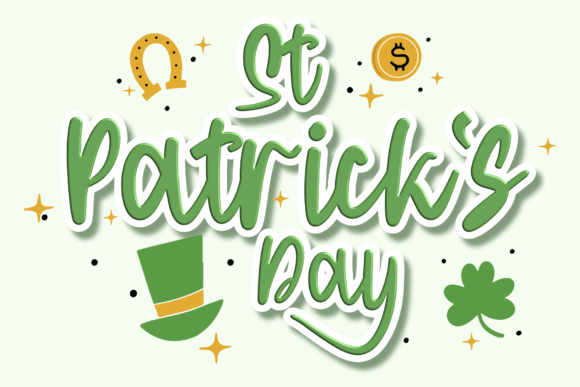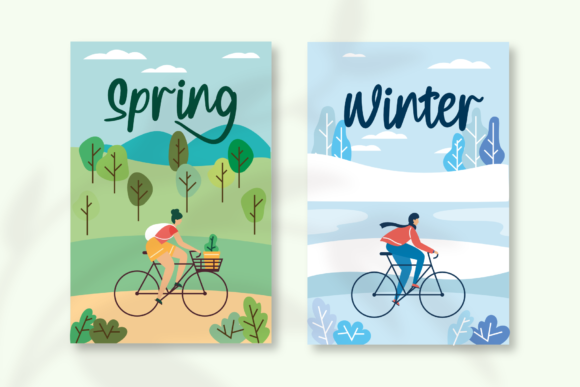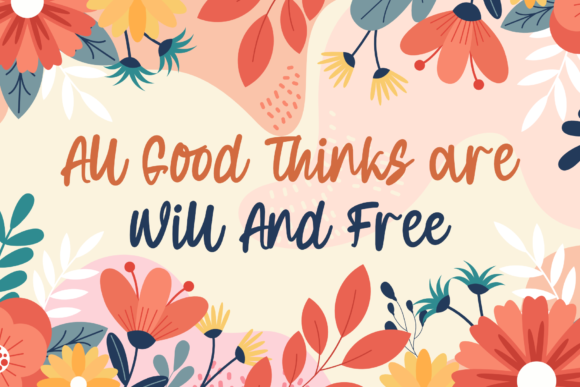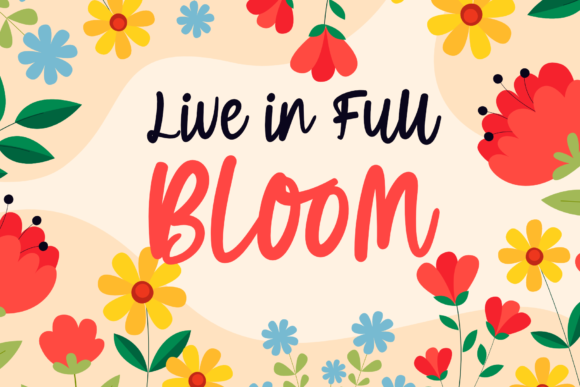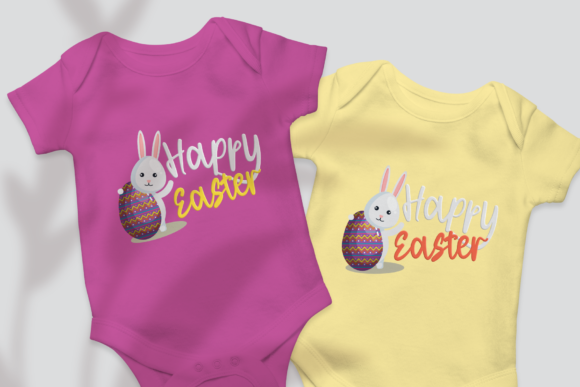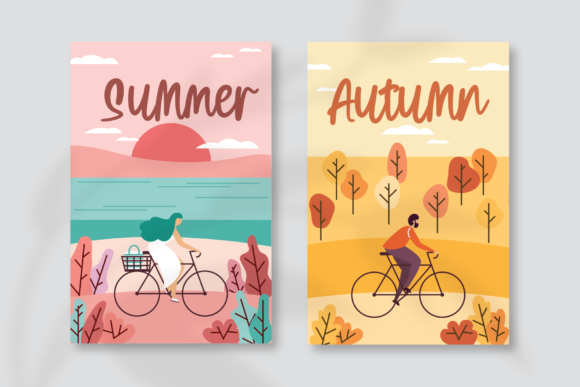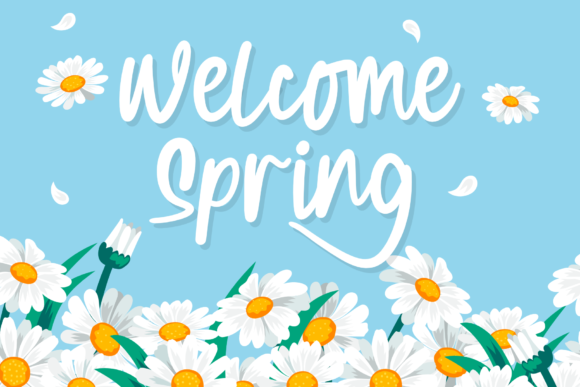
Honey Pools Font
About Honey Pools Font
Honey Pools is a playful handwritten font. No matter the topic, this font will be an incredibly asset to your fonts’ library, as it has the potential to elevate any creation.